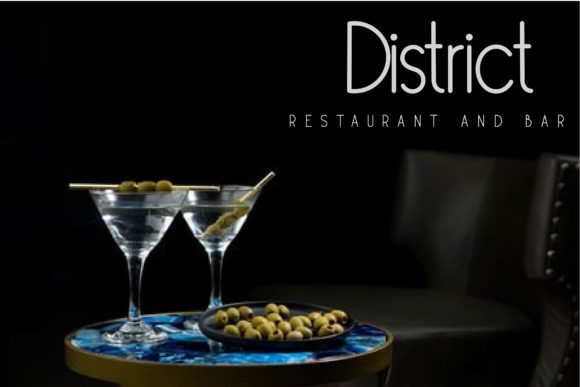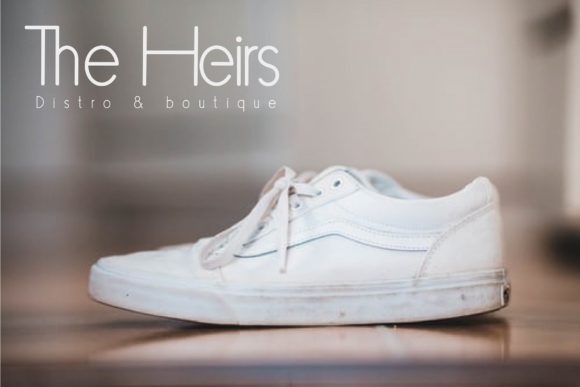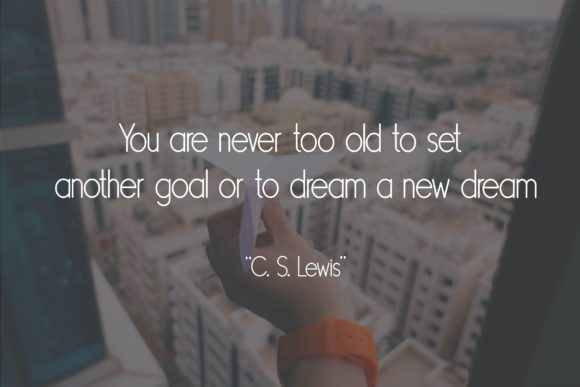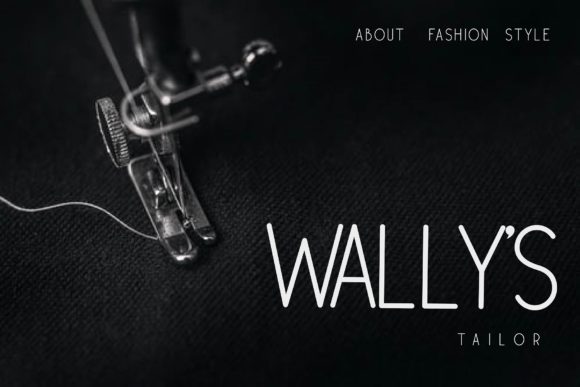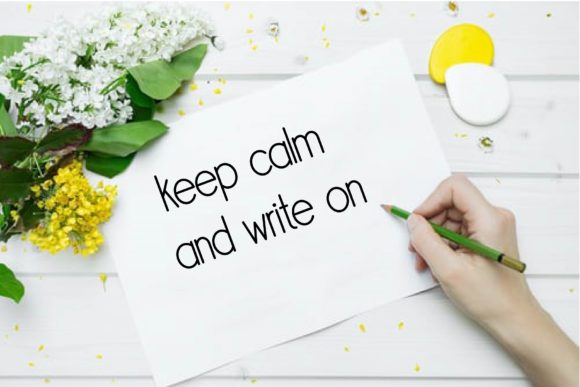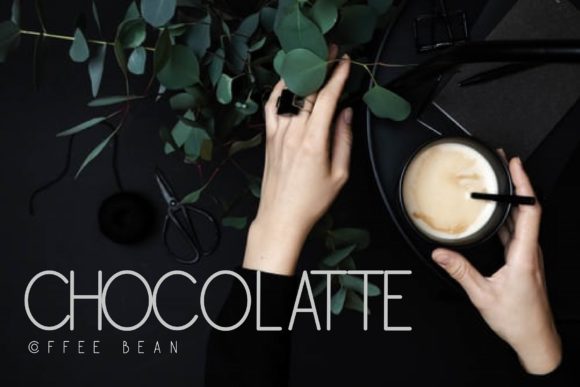
The Corale Font: A Designer’s New Best Friend
I’ll never forget the time I was working on a branding project for a trendy coffee shop. I had spent hours perfecting the logo, but something was off. The font I had chosen just wasn’t doing justice to the design. I scrolled through font after font, but nothing seemed quite right. That’s when I stumbled upon Corale Font. It was love at first sight! 😍
Corale is a cool display font perfect for branding, product packaging, invitations, quotes, T-shirts, labels, posters, logos, or any design you wish to create. Add it to your creative projects, and it will make your work more attractive and outstanding!
- ✨ Unique and modern design that stands out from the crowd
- ✅ Highly versatile and can be used for a wide range of projects
- 💥 Excellent for headlines, titles, and short text
- 🎉 Supports OpenType features, glyphs, and stylistic alternates
While Corale Font is an amazing addition to any design project, there are a few things to keep in mind: 🤔
- ⚠️ It may not be the best choice for body text or long paragraphs, as it’s primarily designed for display purposes
- ⚠️ Some users may find the font a bit too bold or attention-grabbing for certain projects
The Backstory of Corale Font
Corale Font was designed with the goal of creating a unique and modern display font that would stand out in any design project. The designer drew inspiration from the world of fashion and luxury, aiming to create a font that exudes confidence and sophistication. The result is a font that’s both elegant and attention-grabbing, perfect for making a statement in any design.
Q: What type of projects is Corale Font best suited for?
A: Corale Font is perfect for branding, product packaging, invitations, quotes, T-shirts, labels, posters, logos, and any other design project where you want to make a statement.
Q: Is Corale Font easy to read?
A: Corale Font is designed to be attention-grabbing, but it may not be the best choice for long paragraphs or body text. It’s best used for headlines, titles, and short text.